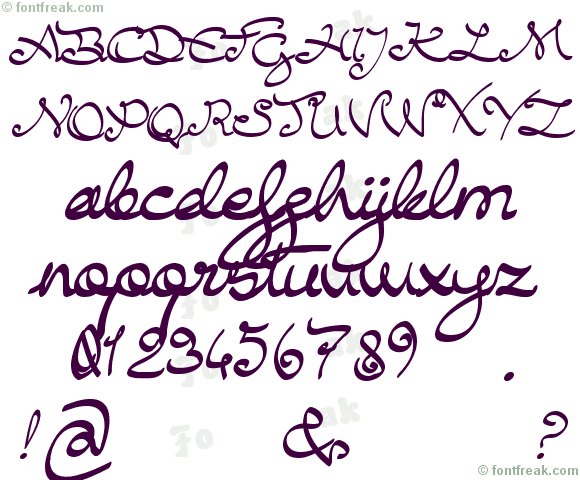
Buffalo Chicken
About Buffalo Chicken
The Buffalo Chicken font by Roland Huse is a decorative script typeface that exudes a playful and whimsical charm. This font features a fluid, handwritten style with a unique flair, showcasing a medium stroke weight that maintains readability while adding character. The contrast in its strokes is subtle yet effective, allowing for a lively appearance that captures attention without overwhelming the viewer. The flowing lines and occasional loops create a sense of movement, making this font ideal for designs that aim to convey a casual and inviting atmosphere.
Buffalo Chicken is particularly well-suited for a variety of creative projects. Its playful nature makes it an excellent choice for restaurant menus, especially those featuring comfort food or casual dining options. It can also add a fun touch to wedding invitations, particularly for couples looking to inject personality into their stationery. Additionally, this font is great for promotional materials, such as flyers or posters for events, where a lively and engaging typeface can draw in prospective attendees. Content creators, small business owners, and graphic designers will find it beneficial for branding projects that require a friendly and approachable aesthetic.
What sets the Buffalo Chicken font apart is its balance of whimsy and legibility. It captures the essence of informal communication while ensuring that the text remains easy to read. This makes it a versatile choice for both print and digital applications. Whether you're crafting a logo, designing an event invitation, or enhancing social media graphics, the Buffalo Chicken font free download offers an engaging solution that stands out in a sea of conventional typefaces. Embrace the unique characteristics of this font to elevate your design projects and leave a lasting impression.